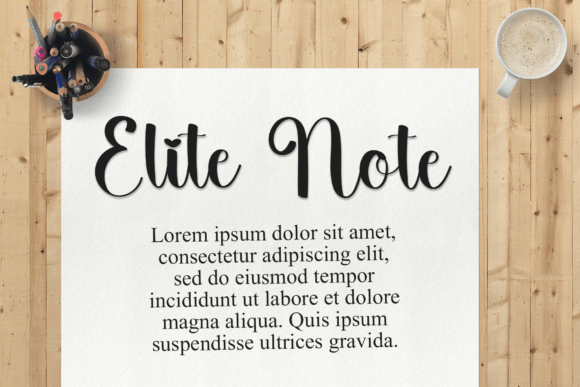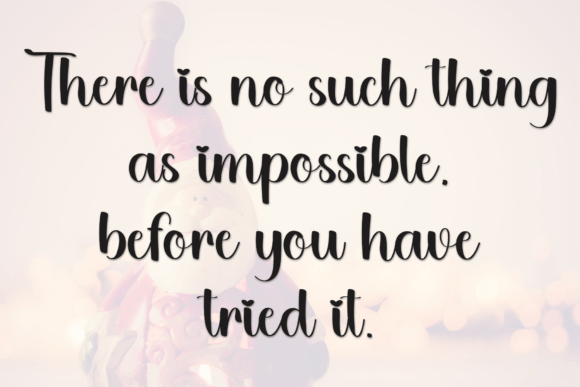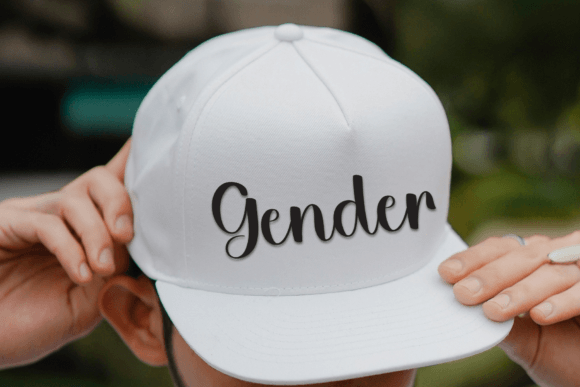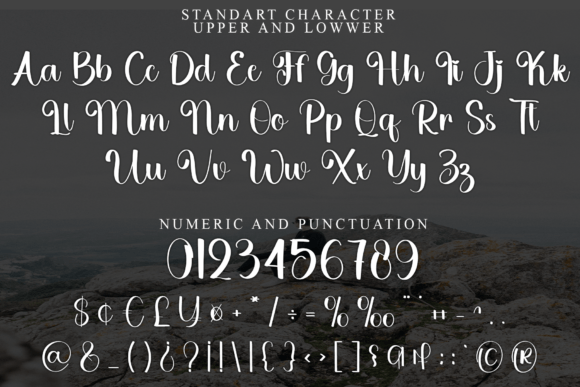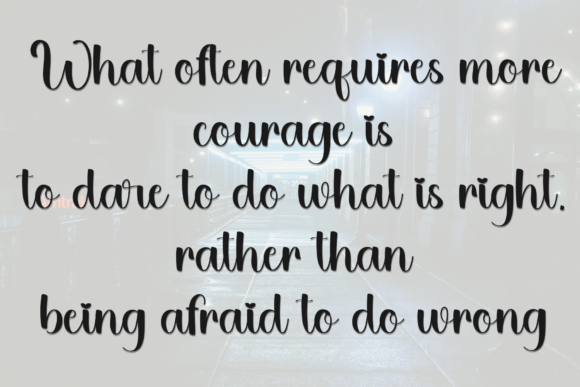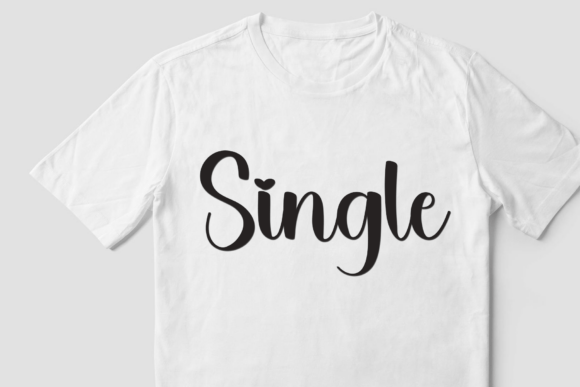
Introducing Charla Font: Elevate Your Creativity with Elegance
Are you a designer, crafter, or DIY enthusiast looking for a font that can add a touch of magic to your creative projects? Look no further than Charla Font, a beautiful script font designed to bring a sense of elegance and sophistication to your work. In this article, we’ll explore the features and benefits of Charla Font, and how it can help you turn your creative ideas into stunning works of art.
What is Charla Font?
Charla Font is a carefully crafted script font that combines the beauty of handwritten calligraphy with the elegance of digital design. With its flowing lines, intricate details, and whimsical flourishes, Charla Font is the perfect choice for anyone looking to add a touch of personality and style to their creative projects. Whether you’re designing social media graphics, crafting DIY projects, or creating digital art, Charla Font is sure to impress.
Features of Charla Font
- Magical and Elegant Design: Charla Font features a unique and captivating design that is sure to grab attention. Its elegant lines and flourishes make it perfect for creating beautiful and eye-catching graphics.
- Script Font Style: Charla Font is a script font that mimics the look and feel of handwritten calligraphy. Its fluid and dynamic lines give it a natural and organic feel that is perfect for creating creative and artistic designs.
- Versatile and Flexible: Charla Font is a versatile font that can be used for a wide range of creative projects, from social media graphics and DIY crafts to digital art and illustrations.
Uses of Charla Font
Charla Font is a versatile font that can be used for a wide range of creative projects, including:
- Instagram Graphics: Add a touch of elegance and sophistication to your Instagram graphics with Charla Font. Use it to create beautiful quotes, inspirational messages, or promotional graphics that will grab attention and drive engagement.
- DIY Projects: Charla Font is perfect for DIY enthusiasts who love crafting and making things. Use it to create beautiful labels, signs, and decorations for your home or gifts.
- Digital Art: Charla Font is a great choice for digital artists who want to add a touch of elegance and sophistication to their artwork. Use it to create beautiful illustrations, paintings, or mixed media art.
- Calligraphy and Hand Lettering: Charla Font is also a great choice for calligraphy and hand lettering enthusiasts. Use it to practice your skills or create beautiful pieces of art.
Benefits of Using Charla Font
There are many benefits to using Charla Font in your creative projects. Here are just a few:
- Adds Elegance and Sophistication: Charla Font adds a touch of elegance and sophistication to any design or project. Its beautiful lines and flourishes make it perfect for creating high-end graphics and artwork.
- Unique and Eye-Catching: Charla Font is a unique and eye-catching font that is sure to grab attention. Its whimsical flourishes and intricate details make it perfect for creating graphics that stand out from the crowd.
- Versatile and Flexible: Charla Font is a versatile font that can be used for a wide range of creative projects, from social media graphics and DIY crafts to digital art and illustrations.
In conclusion, Charla Font is a beautiful and elegant script font that is perfect for designers, crafters, and DIY enthusiasts. Its unique and eye-catching design, versatility, and ease of use make it a great choice for anyone looking to add a touch of magic to their creative projects. Whether you’re designing social media graphics, crafting DIY projects, or creating digital art, Charla Font is sure to impress. So why wait? Download Charla Font today and start creating stunning works of art!